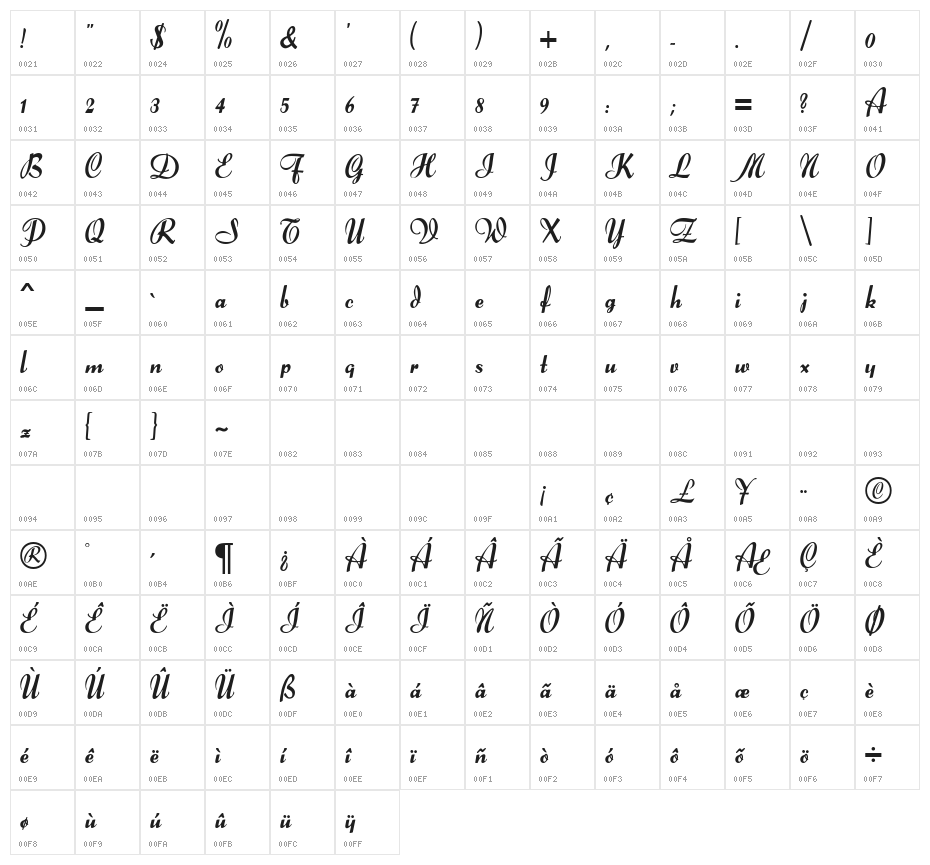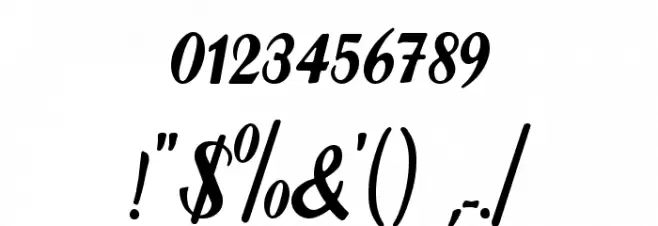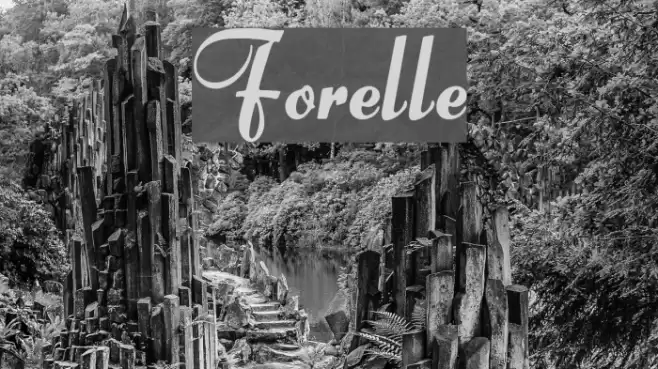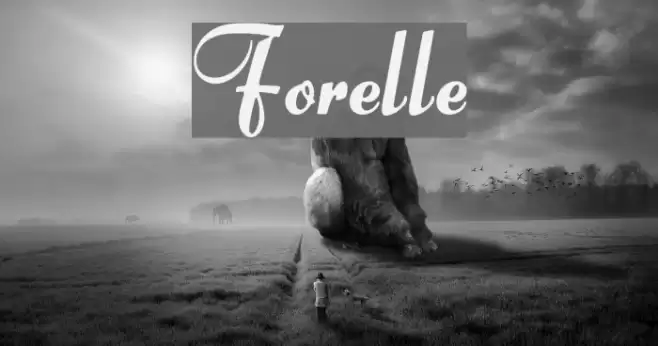
Forelle Font
Forelle Description
This font features a classic script style with elegant, flowing lines and a sense of sophistication. The uppercase letters are ornate, with sweeping curves and flourishes that give them a formal appearance. The lowercase letters maintain a consistent style, with smooth connections between characters, enhancing readability. The numerals are designed to match the overall aesthetic, with a slight slant that complements the script nature. Special characters are crafted with the same attention to detail, ensuring they blend seamlessly with the rest of the font. This font is ideal for projects that require a touch of elegance and tradition.
| Overall Style | Classic |
| Use Case | Headlines, Invitations, Branding |
| Proposed Projects | Wedding invitations, formal event programs, elegant branding, and classic book covers. |